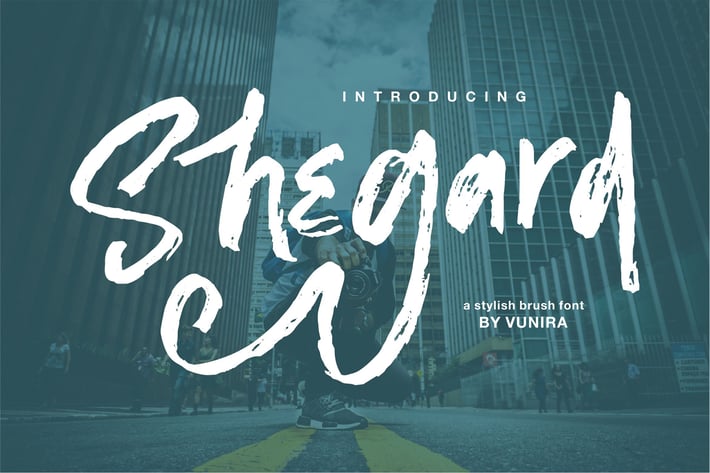
Shegard | A Stylish Brush Font
Shegard | A Stylish Brush Font with a calligraphy style, So beautiful on invitation like greeting cards, branding materials, business cards, quotes, posters, and more!